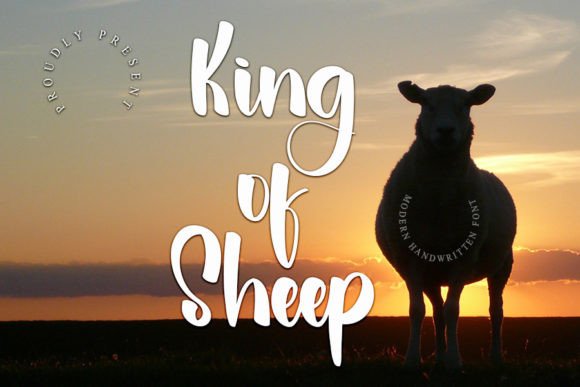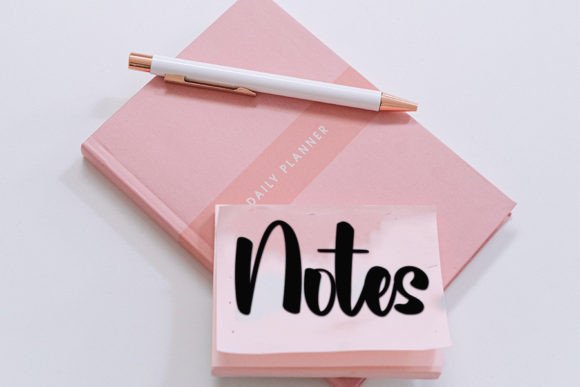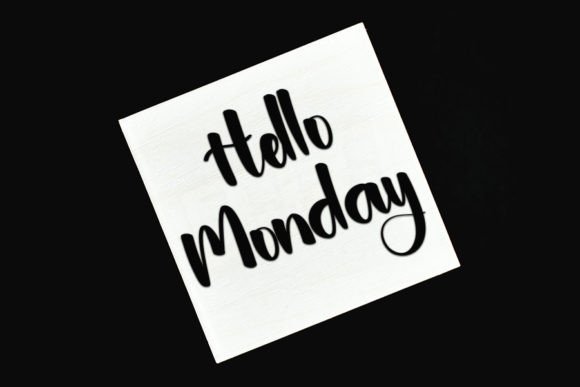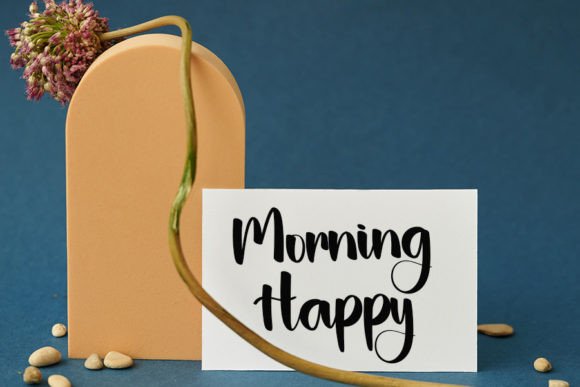
About King of Sheep Font
“King Of Sheep” is a neat and beautiful handwritten font that embodies elegance and charm, making it an ideal choice for your favorite design projects. With its distinct and timeless style, this font has the power to enhance your creative work and help you craft truly spectacular designs.
The appeal of “King Of Sheep” lies in its ability to convey a sense of sophistication and refinement. Its handwritten style is characterized by an elegant touch that adds a touch of class to your text, making it perfect for a wide range of design applications.
One of the standout features of “King Of Sheep” is its versatility. Whether you’re working on logos, branding, invitations, stationery, or any other design project, this font can seamlessly adapt to your creative vision, enhancing the overall aesthetic.
When you incorporate “King Of Sheep” into your projects, you can expect your creations to radiate a sense of style and beauty. This font has the power to make your designs stand out and leave a lasting impression on your audience.
In summary, “King Of Sheep” is more than just a font; it’s a design asset that can enhance your creative projects with its elegant and distinctive handwritten style. Its versatility and timeless appeal make it a valuable addition to your design toolkit. You can confidently use “King Of Sheep” to elevate any project, as it has the potential to bring a sense of sophistication and beauty to your designs!